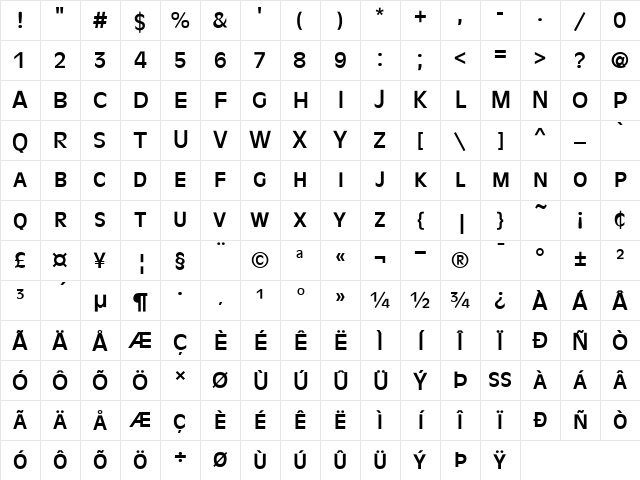
Complete Antique Olive DC D Regular glyph index. Displaying only characters natively supported by Antique Olive DC D Regular font.
Antique Olive DC D wears its vintage influences proudly, with letterforms that recall mid-century signage, classic packaging, and nostalgia-driven design.
Font Pairing: Combine Antique Olive DC D with a simple slab or neutral sans - period-accurate companions reinforce the vintage feel without competing for attention.
Pro Tip: Lean into Antique Olive DC D's period character by pairing it with aged paper textures, muted colour palettes, and vintage illustration styles.